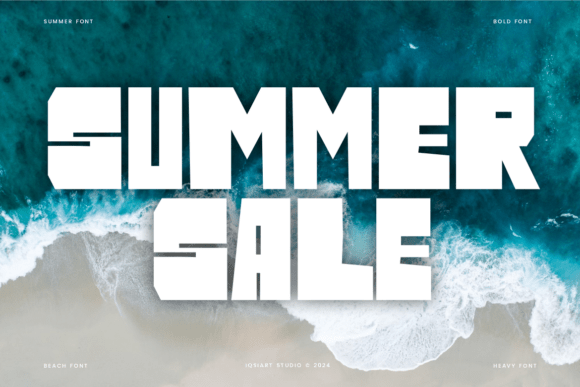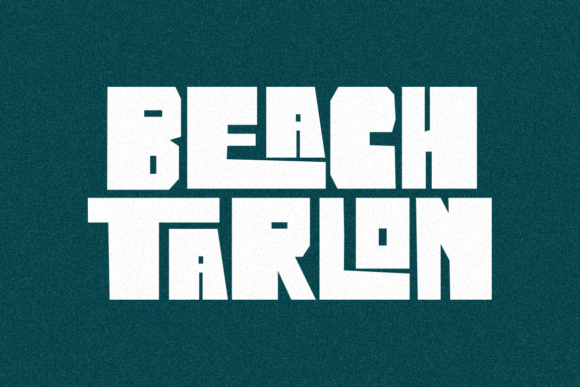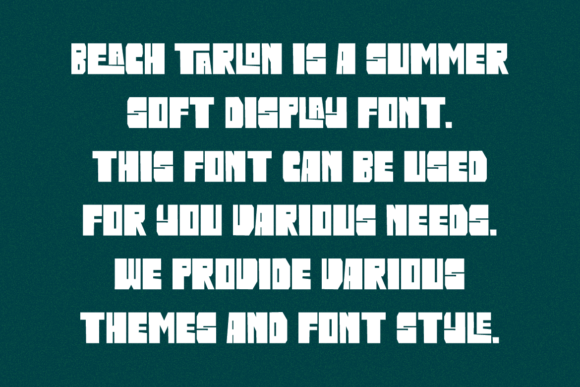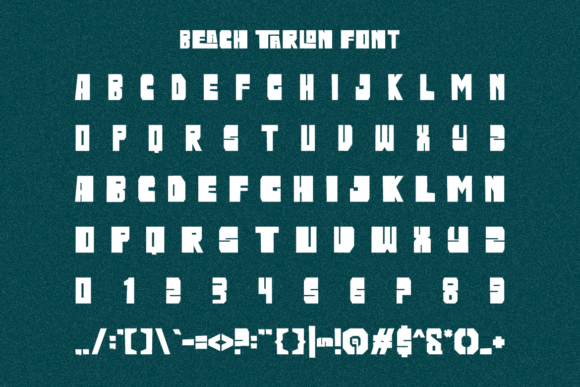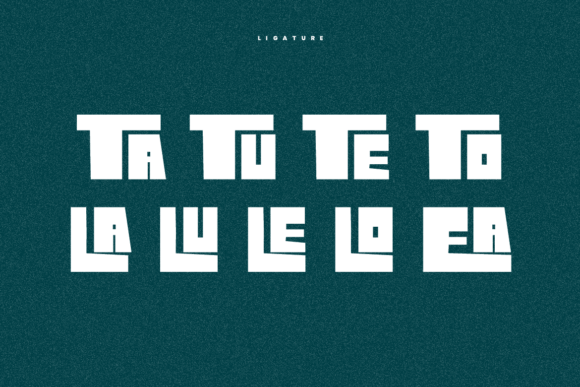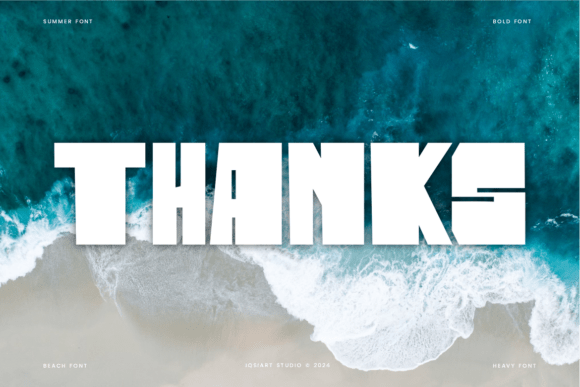
Introduction to Beach Tarlon Font
Beach Tarlon is a striking and heavyweight display font inspired by the raw energy of ocean waves and sandy shores.
With its bold, blocky structure and textured details, this font exudes a rugged yet playful summer vibe Perfect for beach-themed designs, branding, posters, headlines, and adventure-inspired projects, Beach Tarlon brings a powerful and stylish touch to any creative work.